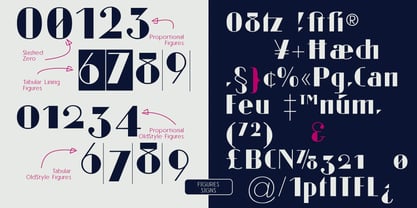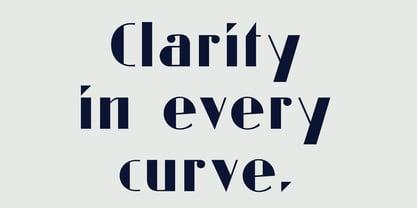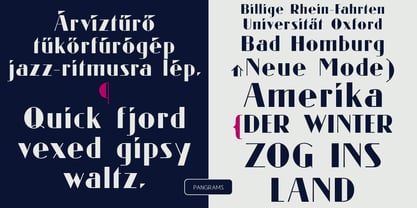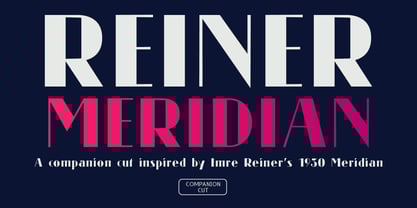
Reiner Meridian
The Reiner Meridian Font Family was designed by Amondó Szegi and published by Monovo. Reiner Meridian contains 1 styles. More about this family
Reiner Meridian is a companion typeface developed alongside Reiner Neue, revisiting the proportions and expressive logic of Imre Reiner’s 1930 Meridian through a contemporary lens. Rather than being a direct revival, it translates the original’s early modernist attitude into a single, focused cut designed to integrate seamlessly within a modern type system. The letterforms maintain a distinctive rhythmic tension and bold structural presence, providing a more characterful counterpoint to the core Reiner Neue family. Reiner Meridian is intended for moments where form takes precedence — such as headlines, editorial accents, and expressive typographic settings — while remaining visually compatible with its companion text styles. Designed as part of a broader typographic framework, Reiner Meridian expands the Reiner Neue system with a historically informed yet distinctly modern voice.